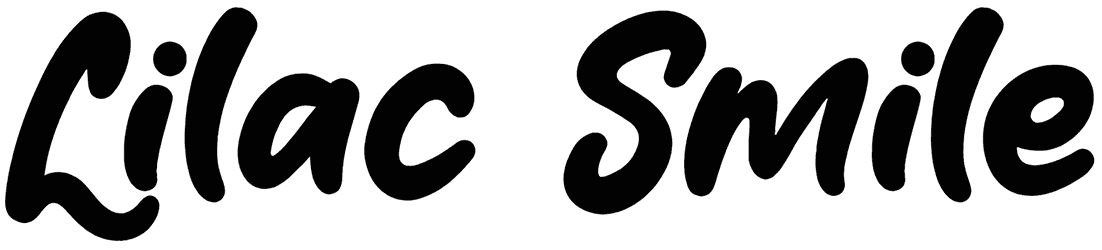
Lilac Smile Font
Try Lilac Smile to pull off an overall design with a personal vibe without breaking a sweat. This sticker font with minimal decorations can be suitable for any age and looks brilliant on the packaging of toys, clothes, or websites. This handwritten font’s minimal and straightforward aesthetics help you communicate directly with your audience and make you the best option compared to your competitors.